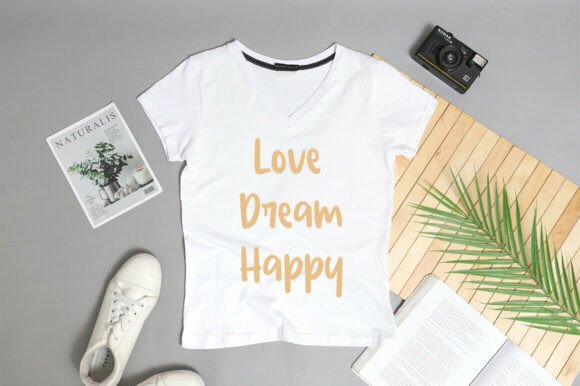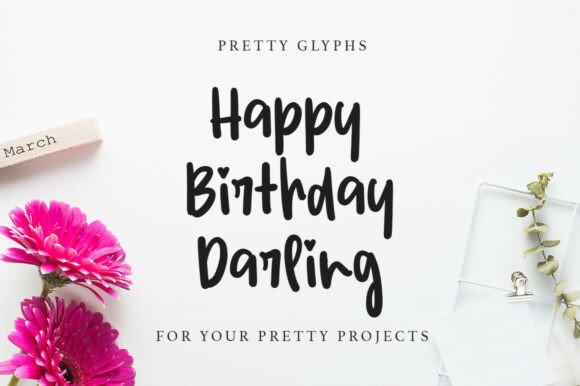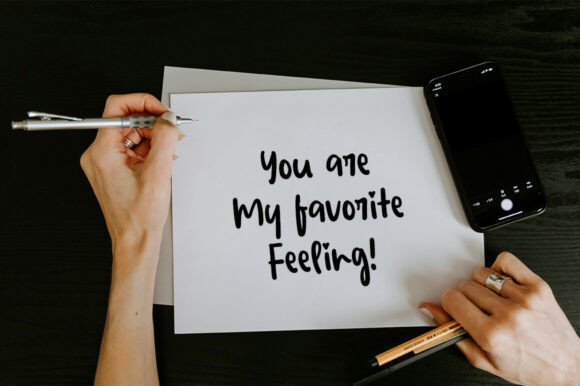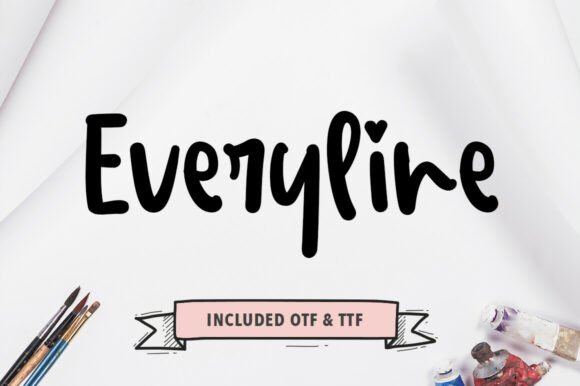
Introducing Everyline Font: The Friendly and Casual Handwriting Font for Creative Projects
Are you tired of using the same old fonts for your design projects? Look no further than Everyline Font, a friendly and casual handwriting font that’s perfect for adding a personal touch to your work. With its distinct, elongated ascenders and rhythmic, “bouncy” baseline, Everyline Font is sure to make your designs stand out from the crowd.
What Makes Everyline Font Special?
Everyline Font is characterized by its thick, rounded strokes and comfortably wide letter spacing, making it easy to read even at smaller sizes. This font is designed to be highly legible, ensuring that your message gets across clearly and effectively. Whether you’re working on a lifestyle branding project, creating playful social media graphics, or designing greeting cards and personalized stationery, Everyline Font is the perfect choice.
Key Features of Everyline Font
• Distinct, elongated ascenders: Give your designs a unique and playful touch with Everyline Font’s signature ascenders.
• Rhythmic, “bouncy” baseline: Add some energy and movement to your designs with this font’s lively baseline.
• Thick, rounded strokes: Create a warm and inviting feel with Everyline Font’s smooth, rounded strokes.
• Comfortably wide letter spacing: Ensure high legibility even at smaller sizes with this font’s generous letter spacing.
Everyline Font is designed to be versatile and easy to use, making it perfect for a wide range of creative projects. Here are just a few ideas to get you started:
• Lifestyle branding: Use Everyline Font to create a friendly and approachable brand identity that resonates with your audience.
• Playful social media graphics: Add some personality to your social media posts with Everyline Font’s fun and playful vibe.
• Greeting cards and invitations: Create personalized and heartfelt greeting cards and invitations with Everyline Font’s warm and inviting feel.
• Personalized stationery: Use Everyline Font to create custom stationery that’s both stylish and functional.
Tips for Using Everyline Font
Here are a few tips for getting the most out of Everyline Font:
• Use it with a bold color scheme: Everyline Font looks great with bright, bold colors that match its playful personality.
• Experiment with different sizes: Everyline Font is highly legible even at smaller sizes, so don’t be afraid to experiment with different font sizes to create visual interest.
• Pair it with a simple background: Let Everyline Font be the star of the show by pairing it with a simple background that doesn’t compete for attention.
Everyline Font is a friendly and casual handwriting font that’s perfect for adding a personal touch to your design projects. With its distinct, elongated ascenders and rhythmic, “bouncy” baseline, this font is sure to make your designs stand out from the crowd. Whether you’re working on a lifestyle branding project, creating playful social media graphics, or designing greeting cards and personalized stationery, Everyline Font is the perfect choice. So why wait? Give Everyline Font a try today and see the difference it can make in your designs!